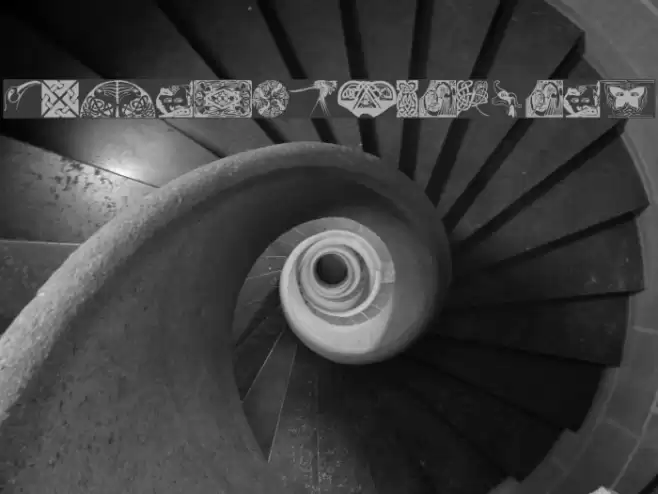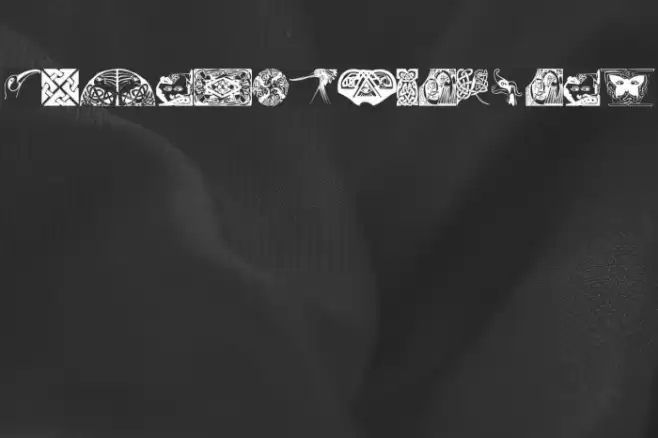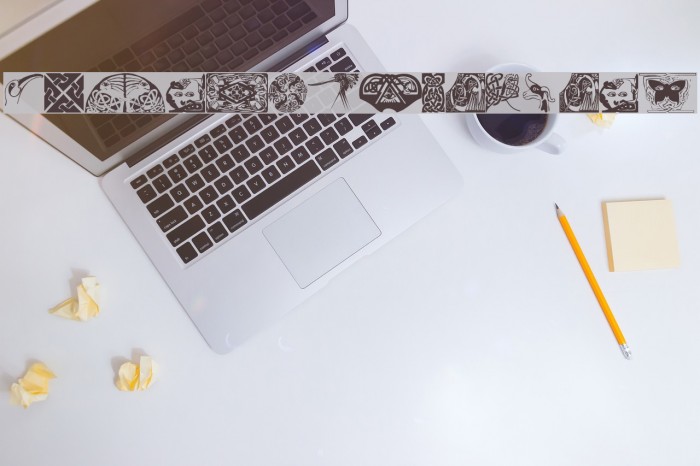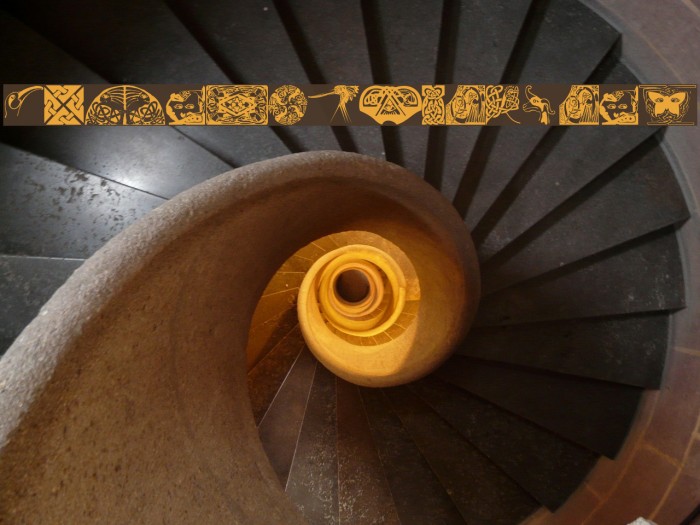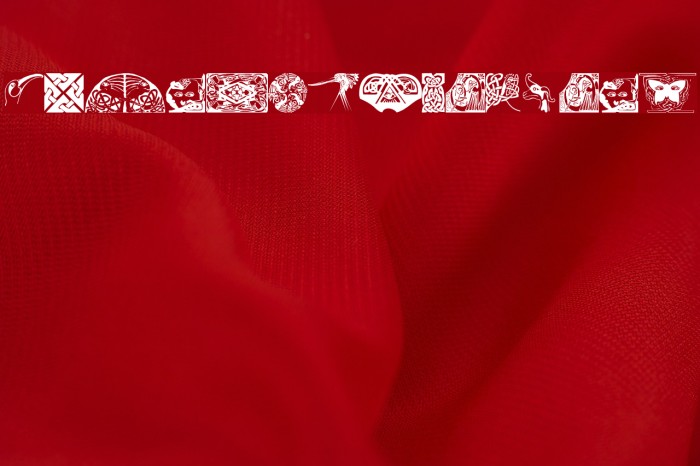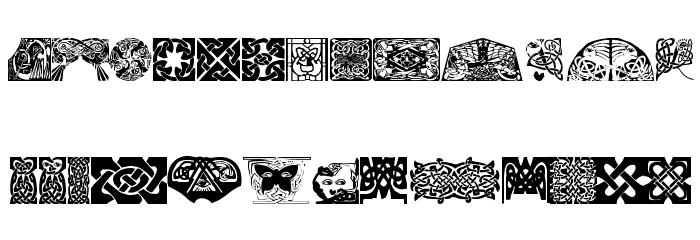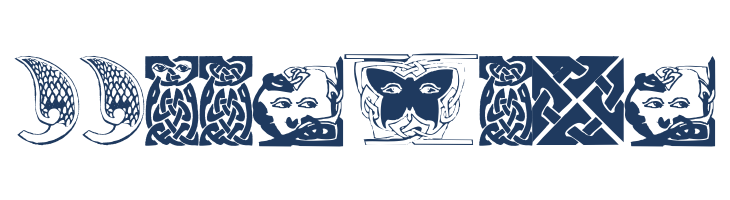
CelticOrnamBats Font
CelticOrnamBats Description
This font is a decorative collection of intricate Celtic-inspired designs, featuring a variety of ornate motifs and patterns. Each character is a unique piece of art, showcasing elements such as animals, knots, and abstract shapes, all rendered in a bold and detailed style. The designs are reminiscent of ancient Celtic art, with a strong emphasis on symmetry and interwoven lines. The characters are filled with rich black and white contrast, making them stand out vividly. This font is not suitable for traditional text but serves as an ornamental set for creative projects.
A decorative font featuring intricate Celtic-inspired designs and motifs from Uncategorized fonts.
- Proposed Projects: Ideal for use in graphic design projects that require a Celtic or historical theme, such as book covers, posters, and themed event invitations.
- Use Case: Logos, Decorative elements, Themed designs